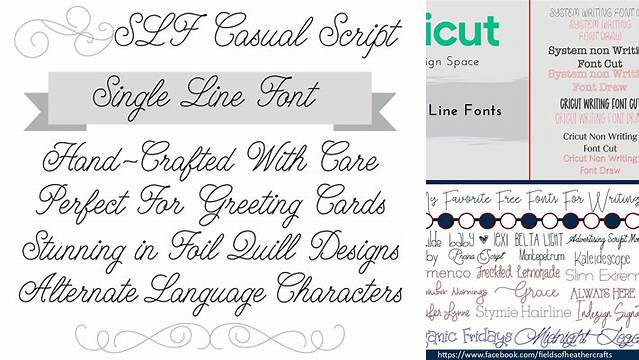
Free Single Line Fonts For Cricut: Download & Create!
Hey everyone! If you're into Cricut crafting and looking to level up your projects, you're in the right place. We're diving deep into the world of single line fonts for Cricut and showing you how to get them for free, download them, and start creating awesome designs. These fonts are perfect for projects like engraving, drawing, and foil transfers, giving your crafts a clean, professional look. Forget those clunky, filled-in fonts; let's get those sleek, single lines going! So, grab your Cricut, and let's get started on this crafting journey! I will show you everything you need to know, from where to find these gems to how to make them work for you. Let's make some magic!
Where to Find Amazing Free Single Line Fonts
Alright, crafting comrades, let's talk about where to score those precious single line fonts for Cricut without spending a dime! There are several fantastic online resources packed with freebies, but the trick is knowing where to look. First off, check out Fontbundles.net and Creative Fabrica; they often have free font bundles that include single line fonts as part of their offerings. Keep an eye on their freebies sections – these sites regularly update their free selections. Also, don't forget about the websites of individual font designers. Many designers offer free fonts to promote their work. Google searches using terms like "free single line fonts Cricut" can unearth hidden treasures. Websites like DaFont and 1001 Fonts also provide a variety of fonts, but always double-check the licensing to ensure commercial use if you plan to sell your creations. Remember, it's all about the hunt! Every week, new free fonts pop up, so bookmarking these sites and checking back often is a great strategy. You may find a font you love for free. Finding the perfect font is often the hardest part, but with the right resources, you can easily discover incredible free single line fonts for Cricut to elevate your creative projects and make them stand out. Happy hunting!
Exploring Font Websites for Single Line Fonts
When searching for single line fonts for Cricut, exploring font websites is essential. These platforms act as treasure troves, providing a wide range of fonts, including those perfectly suited for single-line drawing. Websites like DaFont and 1001 Fonts are popular choices, featuring a vast selection, often with detailed previews allowing you to visualize how each font will look in your Cricut projects. Creative Fabrica and Fontbundles.net often have bundles with free fonts, including specialized single-line options designed for Cricut machines. Always pay attention to the license. Some free fonts are for personal use only, while others allow commercial use. Before downloading, review the licensing terms to avoid any copyright issues. Using the correct keywords during your search is key. Searching for "single line fonts," "outline fonts," or "sketch fonts" can lead you to appropriate fonts. Also, consider using filter options on these websites to narrow down your results and find fonts that fit your project's theme or style. For example, if you're making a card, searching for single-line script fonts will help you find beautiful, elegant options, ideal for greetings or personal notes. Regularly checking font websites and understanding licensing agreements is crucial when using single line fonts for Cricut, ensuring you have access to various fonts for any project. This will allow you to add a touch of personalization and artistry to your crafts.
Using Single Line Fonts in Cricut Design Space
Alright, design dynamos, now that your single line fonts for Cricut are installed, it's time to unleash their potential in Cricut Design Space! Start by opening Design Space and creating a new project. Select the text tool and type the text you want to work with. Then, go to the font menu and choose "System" to find your installed fonts. Search for the name of your single line font, and select it. Initially, the font may appear as a filled-in font, but don't worry, we'll fix that! To convert it to a single line, you'll often need to use the "Draw" or "Write" feature in Design Space. Select the text, then change the operation type to "Draw" from the top menu bar. This will instruct the Cricut to draw the design instead of cutting it. Ensure you have the appropriate pen or marker loaded in your Cricut machine. Some single line fonts are specifically designed for drawing, while others can be modified in Design Space to create a single line effect. Experiment with the contour tool to remove any internal cut lines to achieve a true single line appearance. Remember, the goal is to make sure your Cricut only draws the outline of the font. Using single line fonts in Cricut Design Space is a great way to add a personalized touch to your projects. It allows for intricate, elegant designs.
Converting Regular Fonts to Single Line with Contour Tool
Now, let's explore how to convert regular fonts to single-line fonts using the Contour tool, an essential skill for crafting with your single line fonts for Cricut. Sometimes, you'll download a font that seems perfect, but it's not precisely a single-line font. This is where the Contour tool in Cricut Design Space comes in handy. First, type your text using the text tool, select your chosen font, and resize it as needed. Make sure to convert your text to a path to ensure the contour tool functions. Select your text. In the bottom right corner of Design Space, click "Contour." The Contour panel will open, showing you the different cut lines of your font. Click on the areas you want to remove within the letters until only the outer lines remain. This effectively turns a filled font into a single-line outline. It might take a bit of trial and error, depending on the complexity of the font, so zoom in and carefully select the inner parts. Once you have removed all the unwanted lines, close the Contour panel. Your text is now a single-line design, ready to be drawn or used for engraving with your Cricut machine. Be patient and experiment with different fonts and contouring techniques to achieve the best results. The Contour tool opens up endless possibilities for customizing and adapting your designs, allowing you to transform almost any font into a single line font.
Let's explore how you can achieve advanced effects by layering and combining designs using single line fonts for Cricut. This approach lets you create intricate designs and add depth and complexity to your projects. When layering, use the Cricut Design Space layers panel to organize and arrange your design elements. This will give you control over the order in which your elements appear. Start by creating your base layer. This might be a background or a solid shape. Next, add your single-line font on top, sizing and positioning it to create your desired effect. The trick is to experiment with the transparency of your layers. Lowering the transparency of a layer lets you see the layers underneath, allowing you to create a subtle overlap and mix designs. If you want to use multiple single-line fonts in a project, make sure to arrange them carefully, so that they complement each other. Experiment with different sizes, styles, and colors to create contrast and visual interest. Also, combine single-line fonts with other design elements, such as cut designs, patterns, or illustrations. For example, you could use a single-line font for a quote and cut a background design to go behind the words. This way you’ll create depth. This combination provides a personalized and unique touch. Layering and combining designs using the single line fonts for Cricut enables you to explore endless creative possibilities.